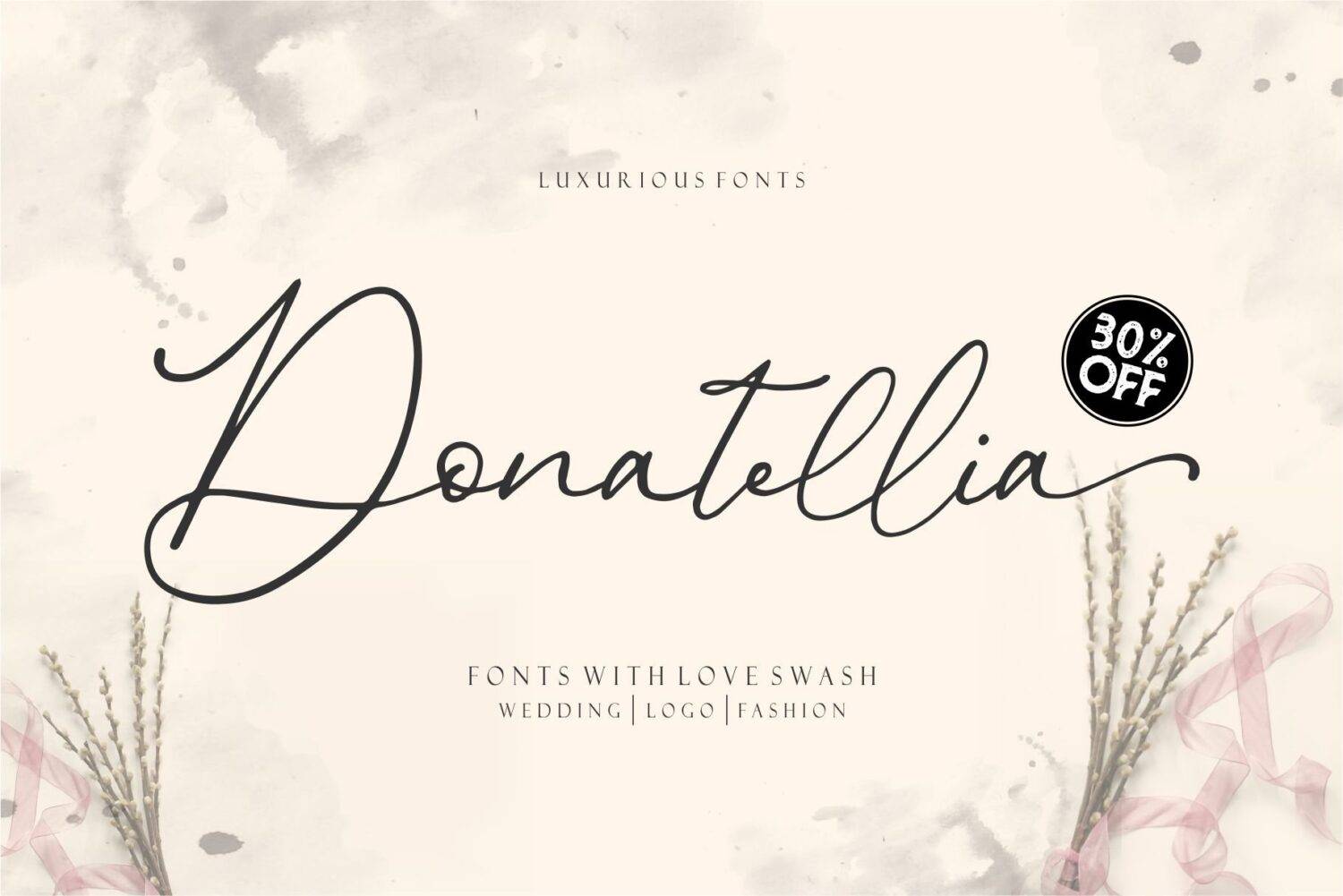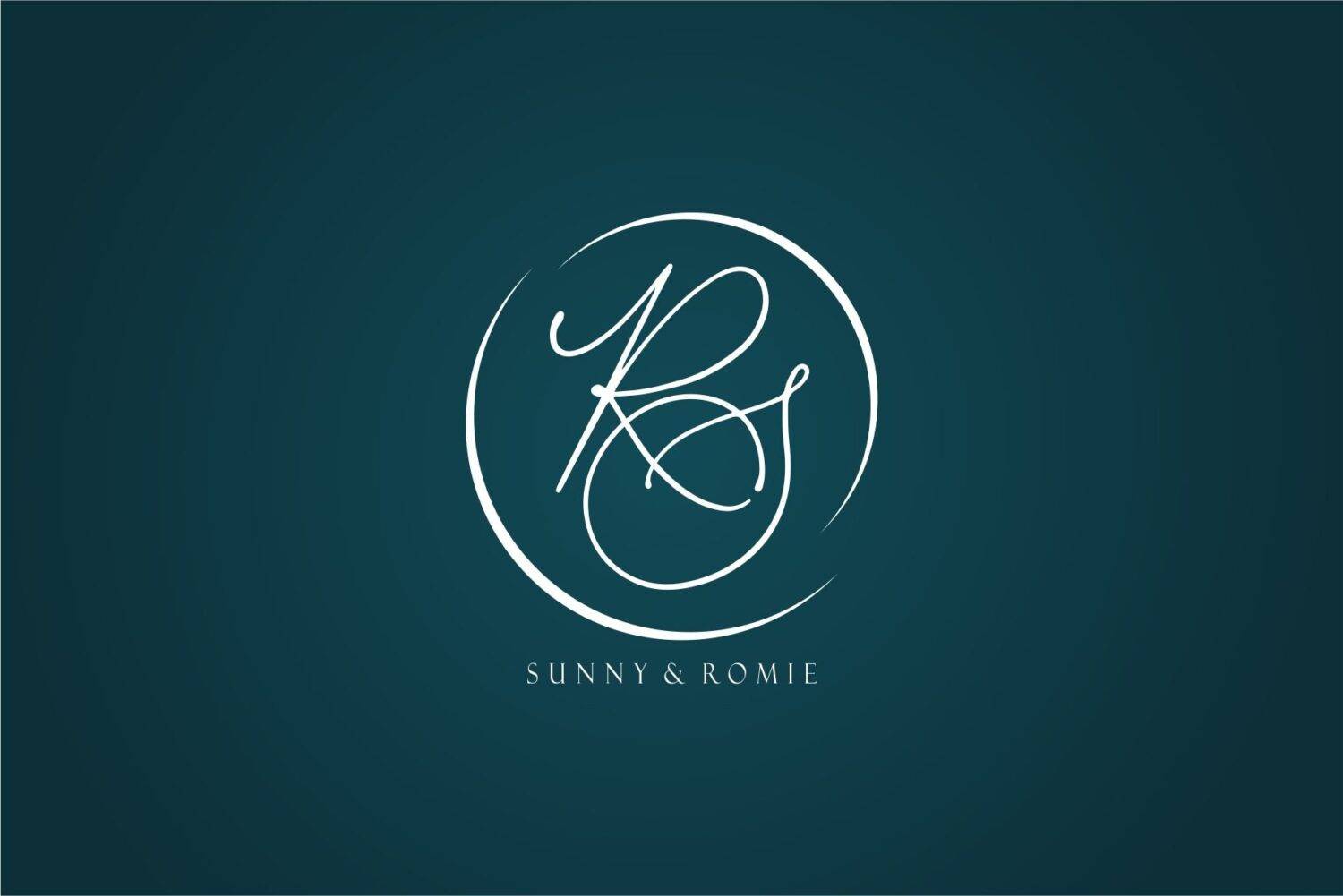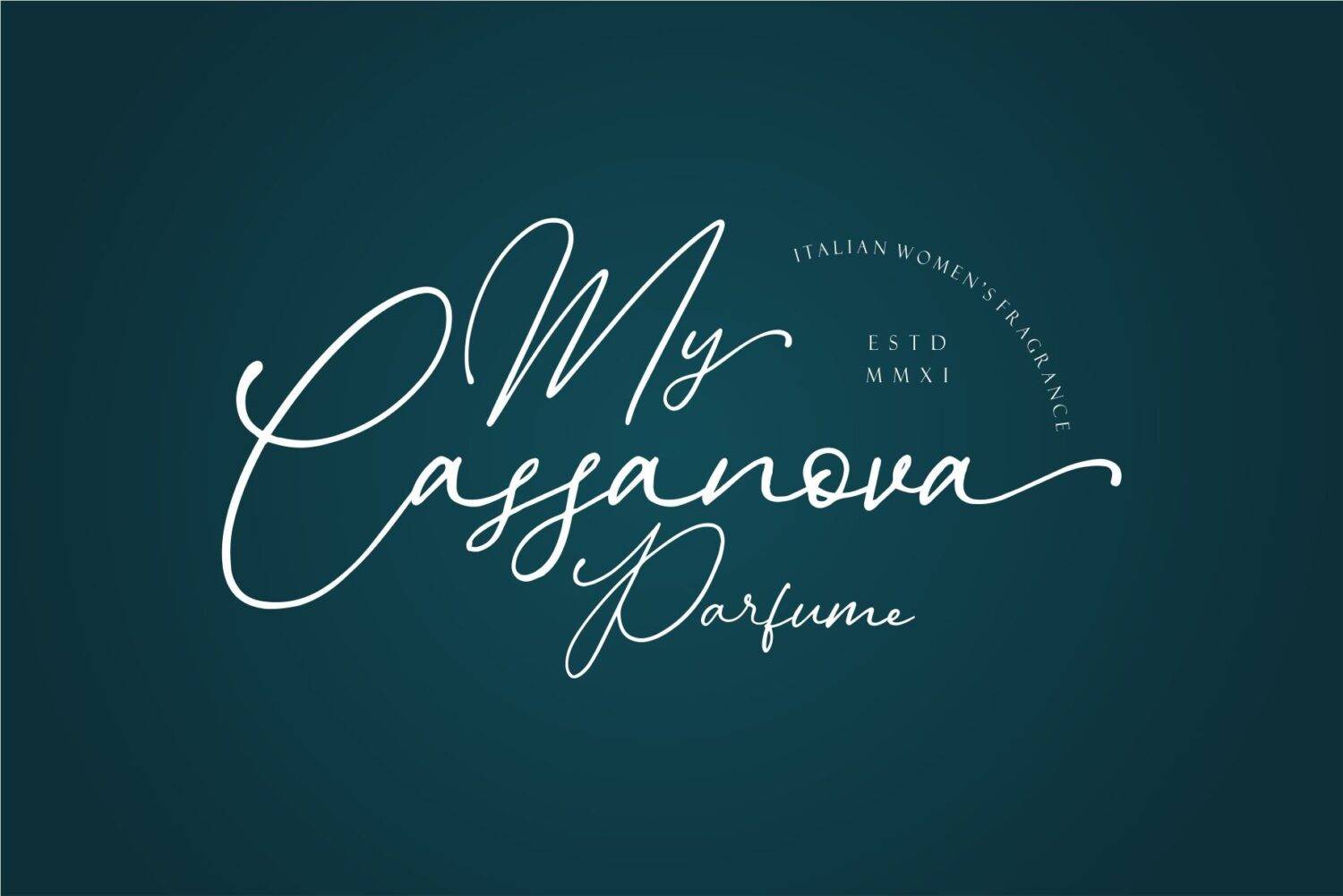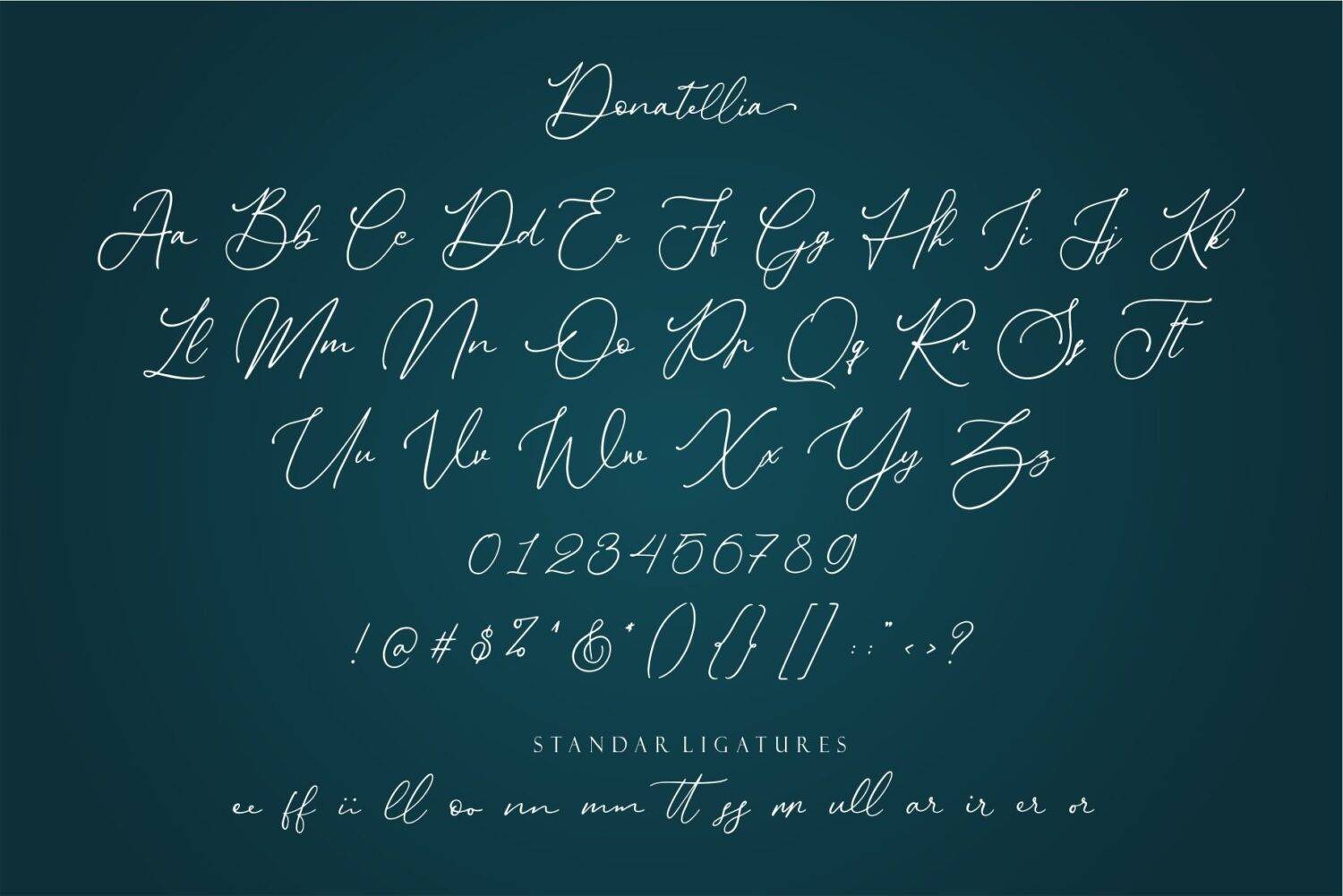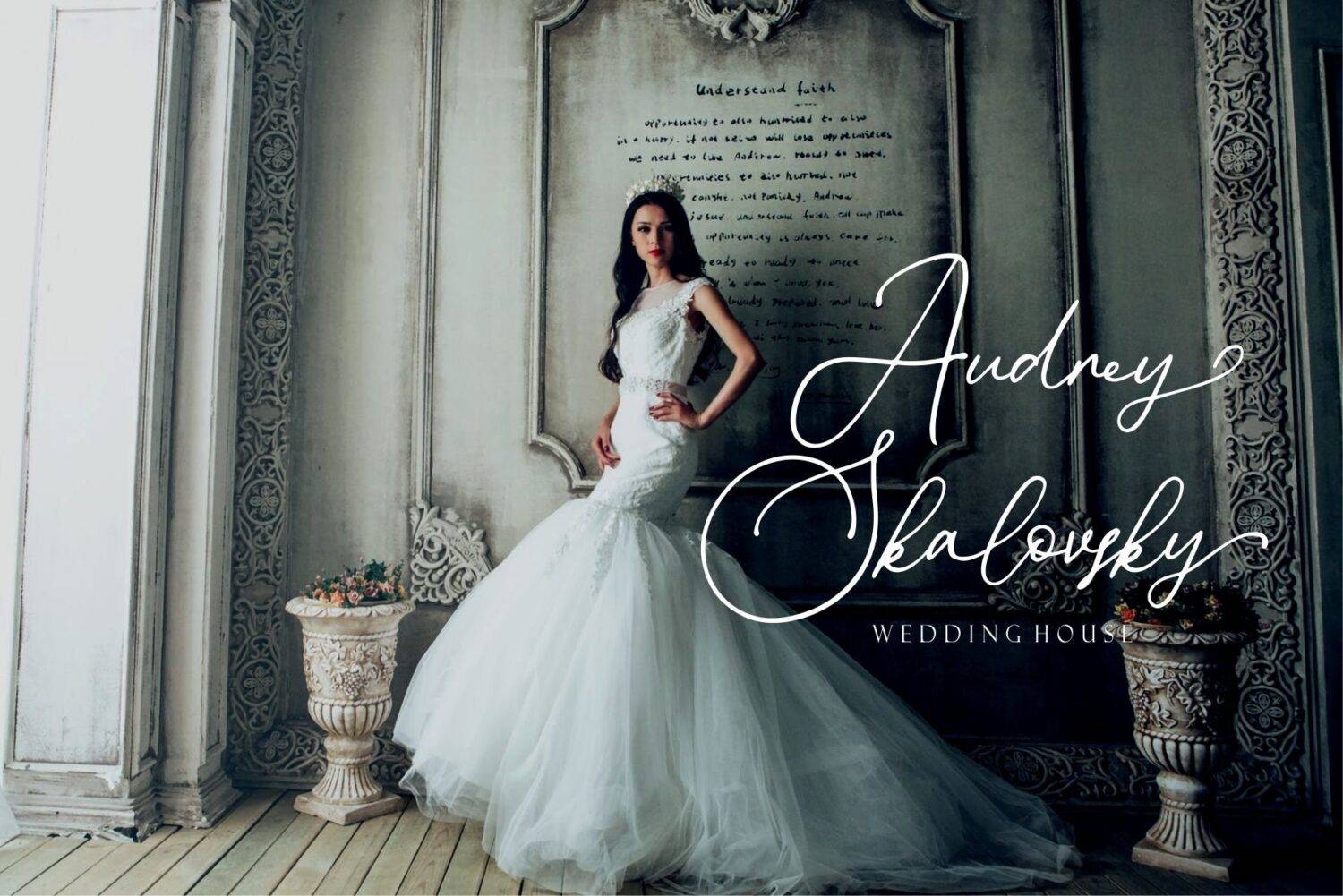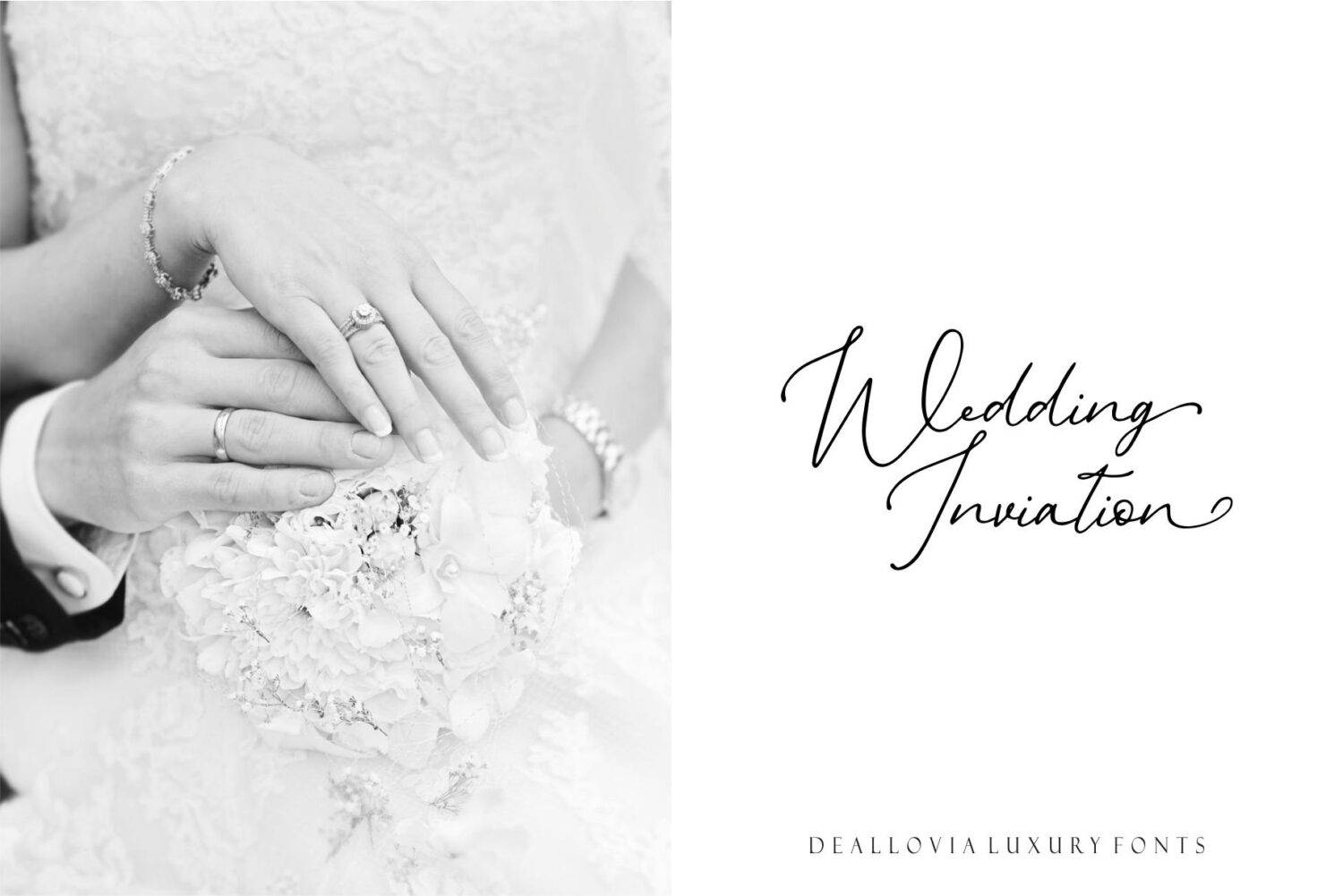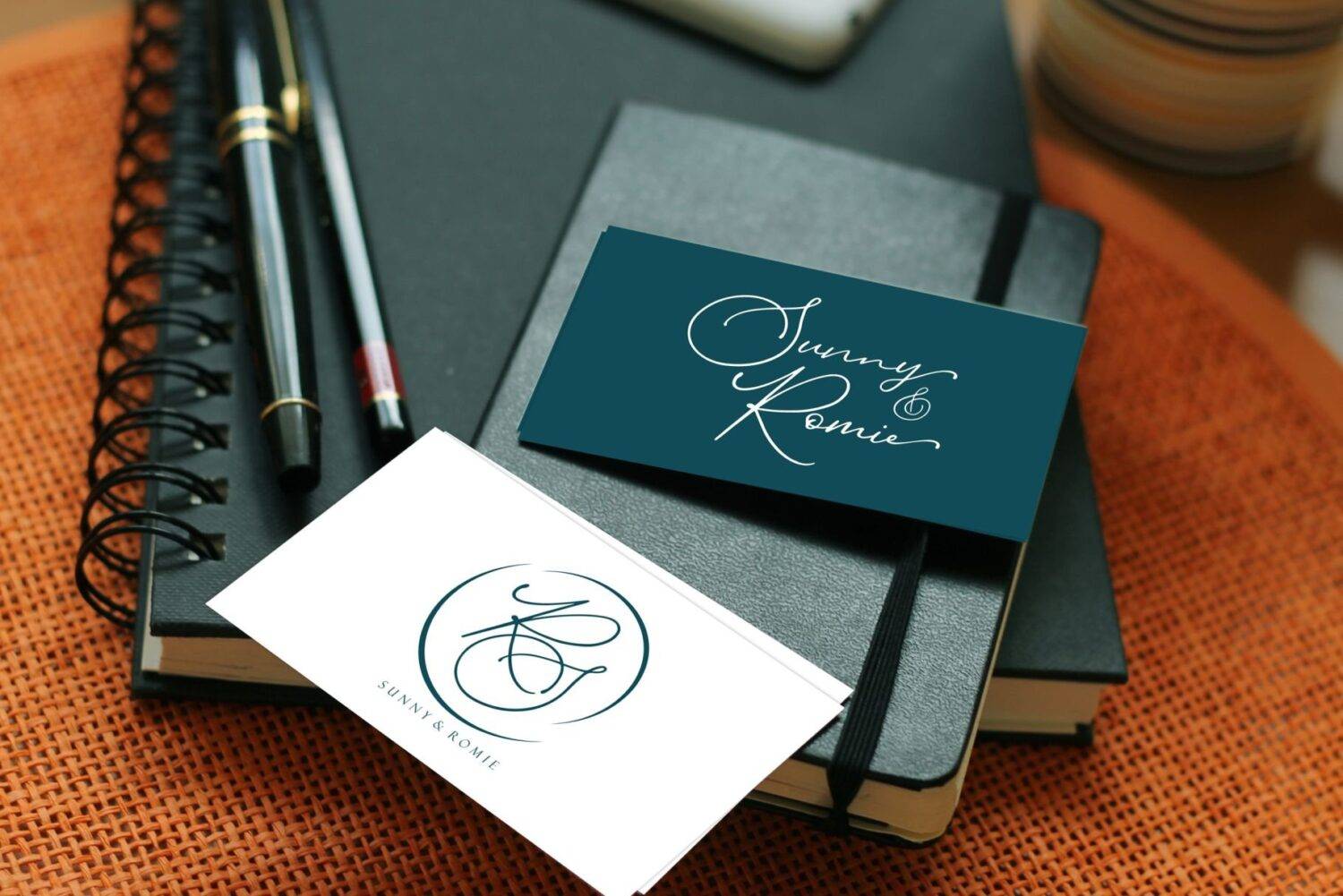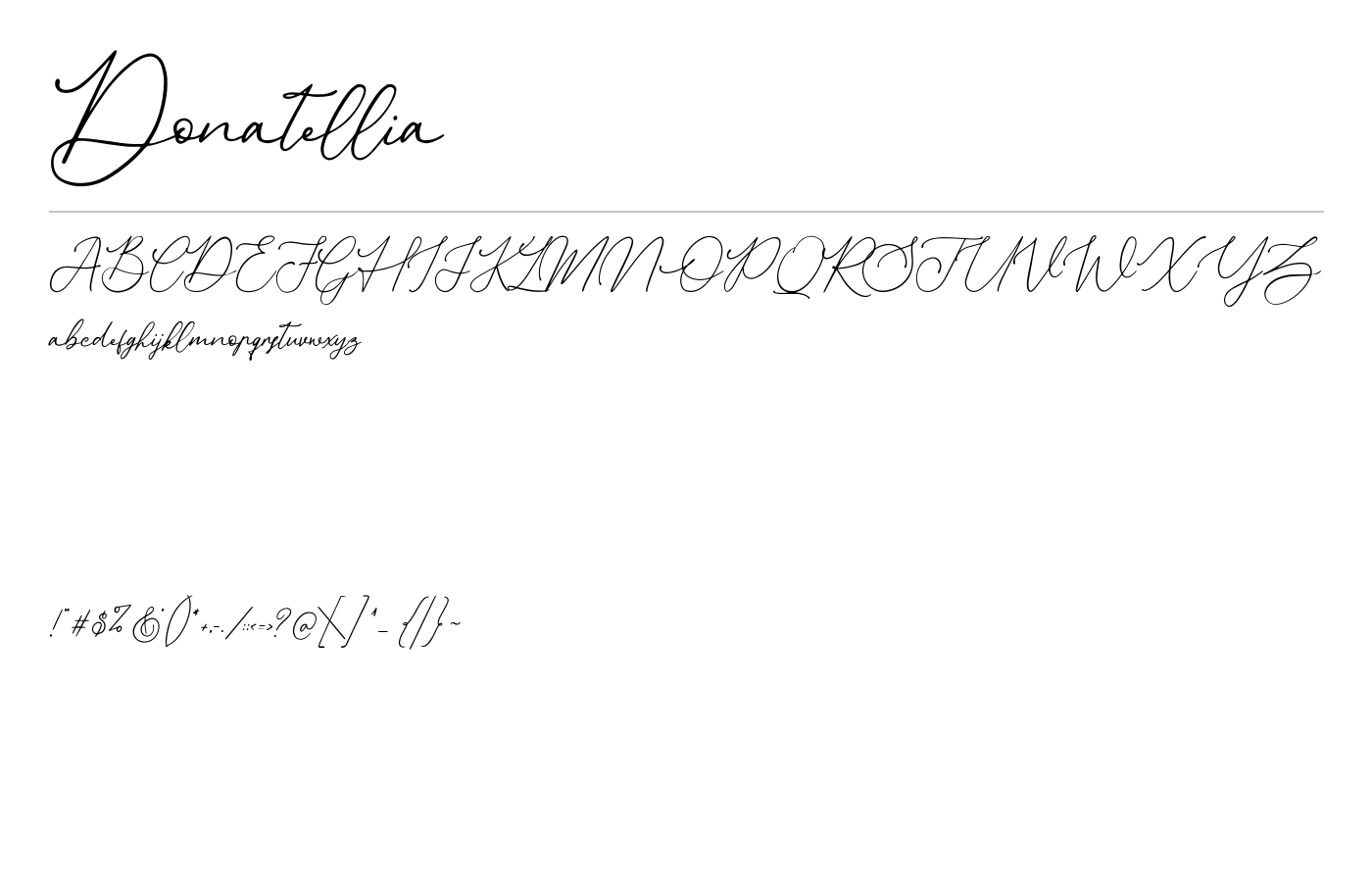
Donatellia Signature Script is a delicate and elegant handwritten font characterized by thin, flowing strokes that mimic natural calligraphy. Its tall, slender letterforms with subtle loops and smooth connections create a refined and personal touch, making it perfect for sophisticated branding, wedding invitations, and stylish logos where a graceful, intimate feel is desired. The font’s light weight and airy spacing enhance its luxurious and modern personality, ideal for adding a signature flair to creative designs.
Donatellia Signature Script
About Donatellia Signature Script
| Font family | Donatellia Signature Script |